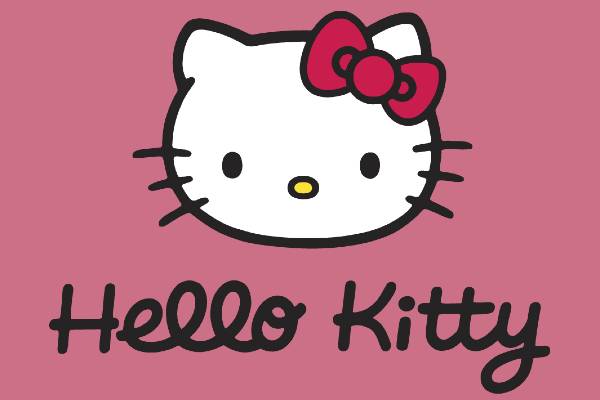
The Hello Kitty font that is most similar to the one used in the official logo is a typeface by the name of Janda Happy Day font. It was created by the font designer Kimberly Geswein and first released in 2012. It has a lovely handwritten appearance that you use to create a wide variety of custom graphics for clothing, stationery, and in web design projects.
This script font includes all the same lovely swirls, curls, flourishes and embellishments that you find in the original cat character by Yuko Shimizu. It comes in a True Type Font (TTF) format which means that it is fully compatible with all PC and Mac computers / laptops and devices. This typeface also includes a full suite of uppercase and lowercase letters, numbers and glyphs. You can use it to create a variety of letting and images in Microsoft Word, Adobe Photoshop, and other image processing software.
There are in fact several other similar fonts that you can try out that look alot like the logo for the Hello Kitty brand. A common aspect of these fonts is that they all feature a bold and rounded appearance, that is geometric in style yet still highly legible.� These include:
To completement this lettering font, we're also offering the�Helly Kitty Woodcutter font for free download as well. This is in fact a dingbat font which includes more than 20 different HK related images, just like the ones used in the original Hello Kitty logo. Designed and created by the Woodcutter Manero foundry, it installs just like a regular font, but instead of outputting lettering, this font produces Hello Kitty images and symbols (or dingbats as they're also sometimes known). This is one of my favorite dingbat fonts and is a file that you're definitely going to want to download and use in your next creative project.